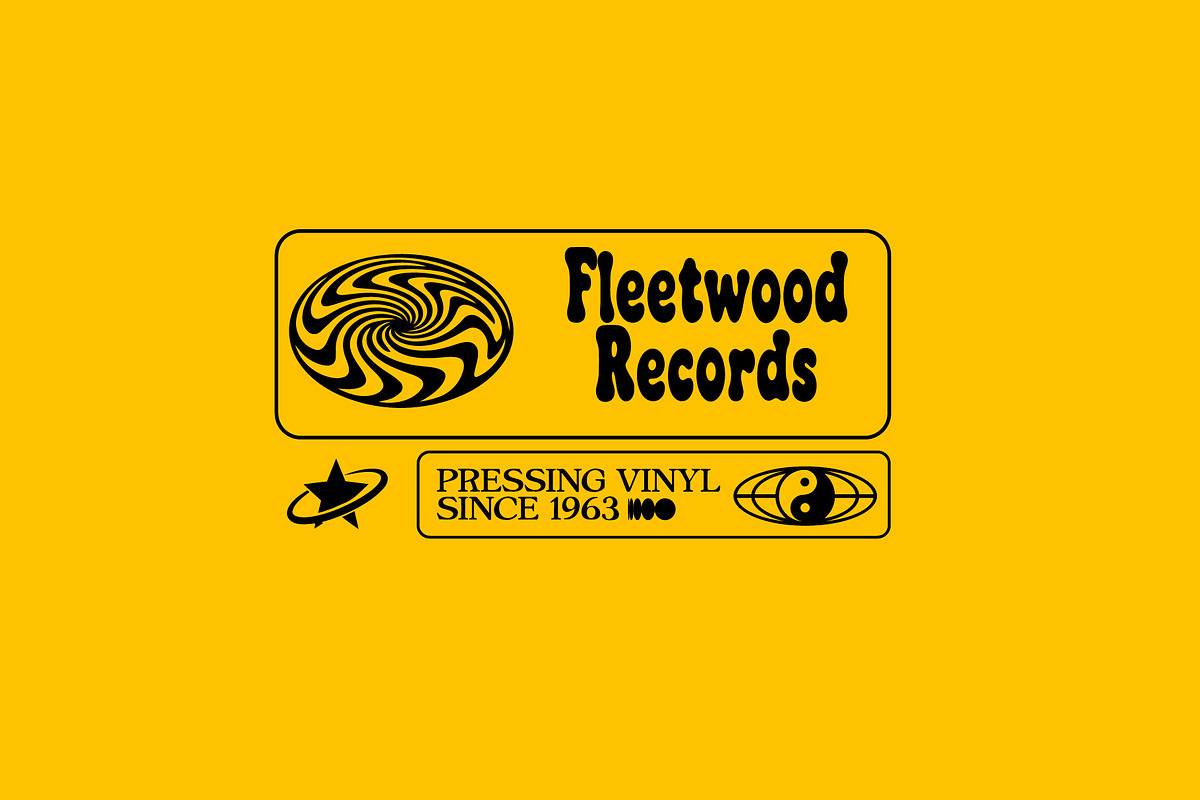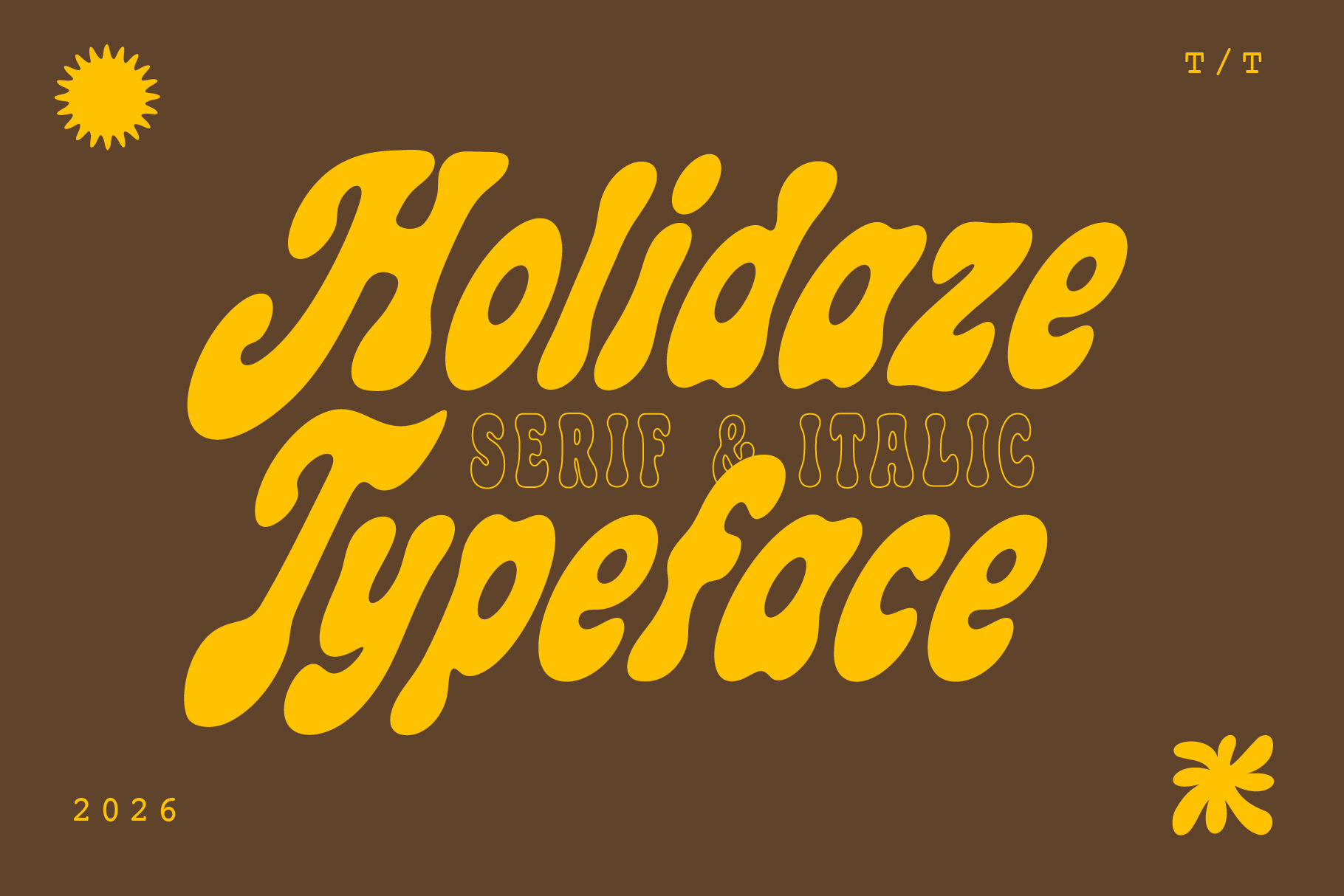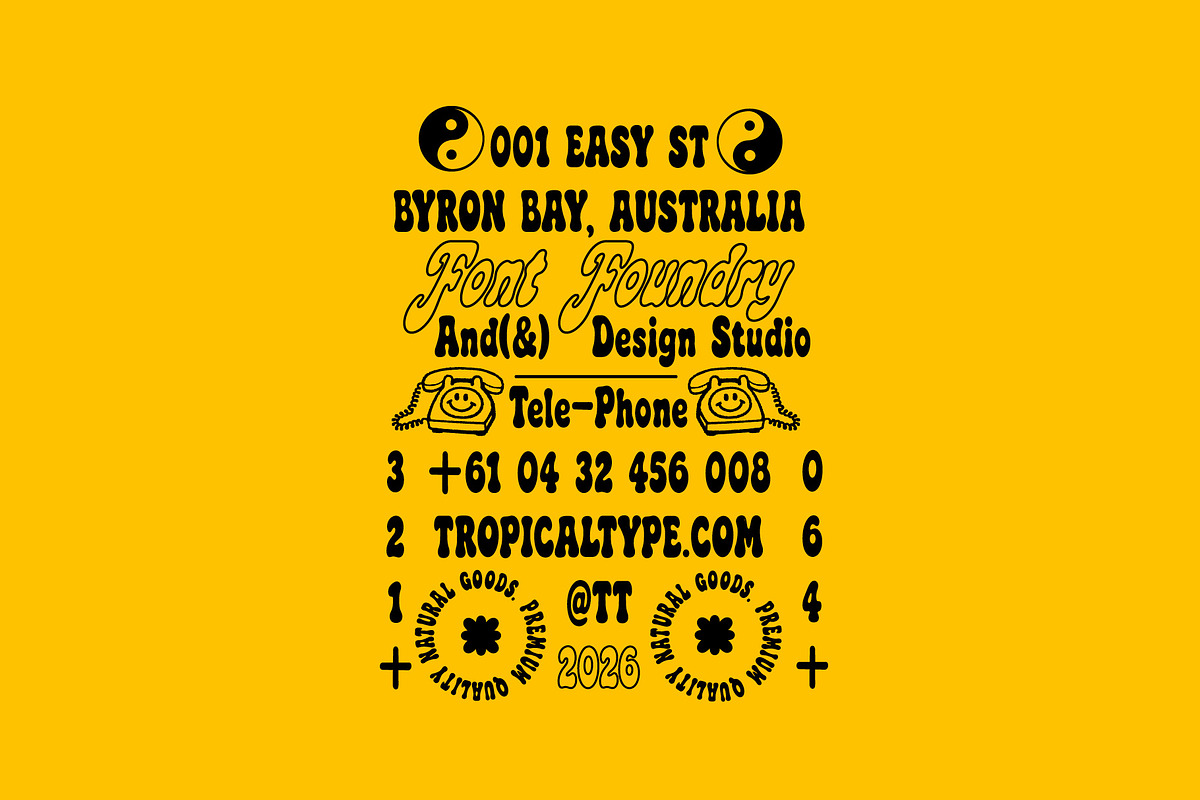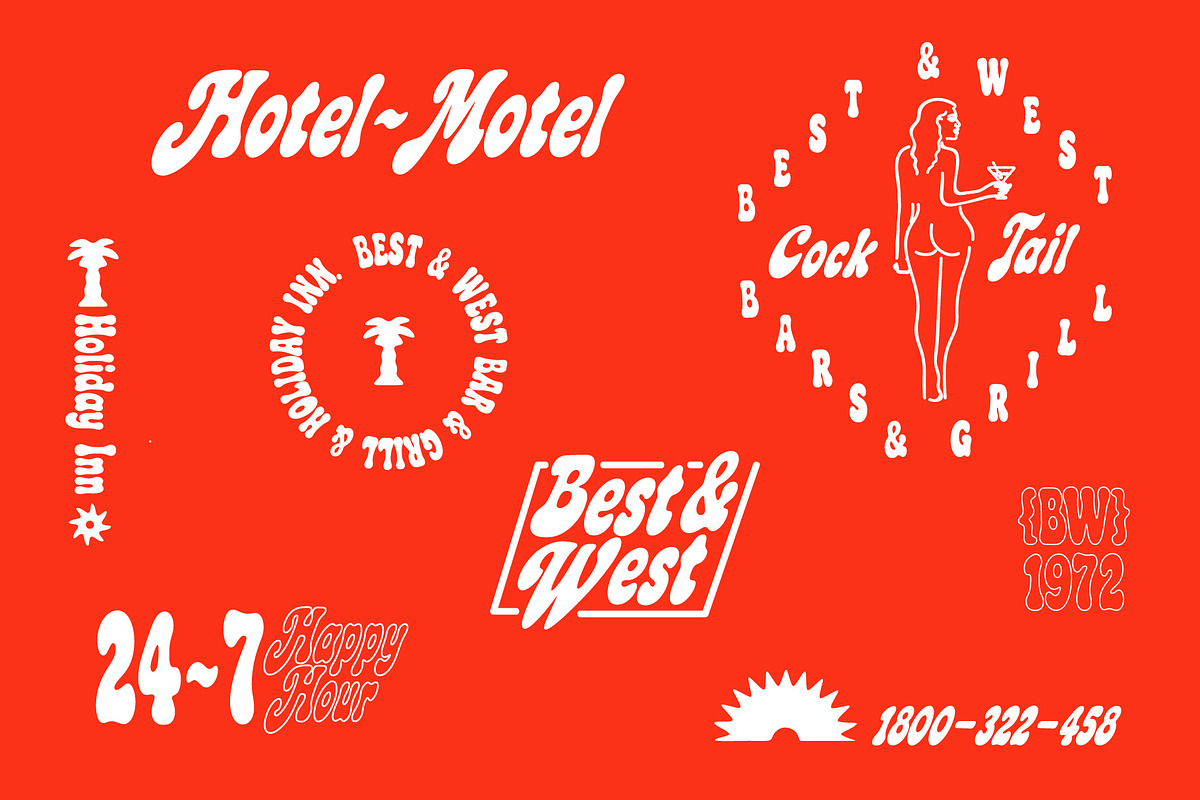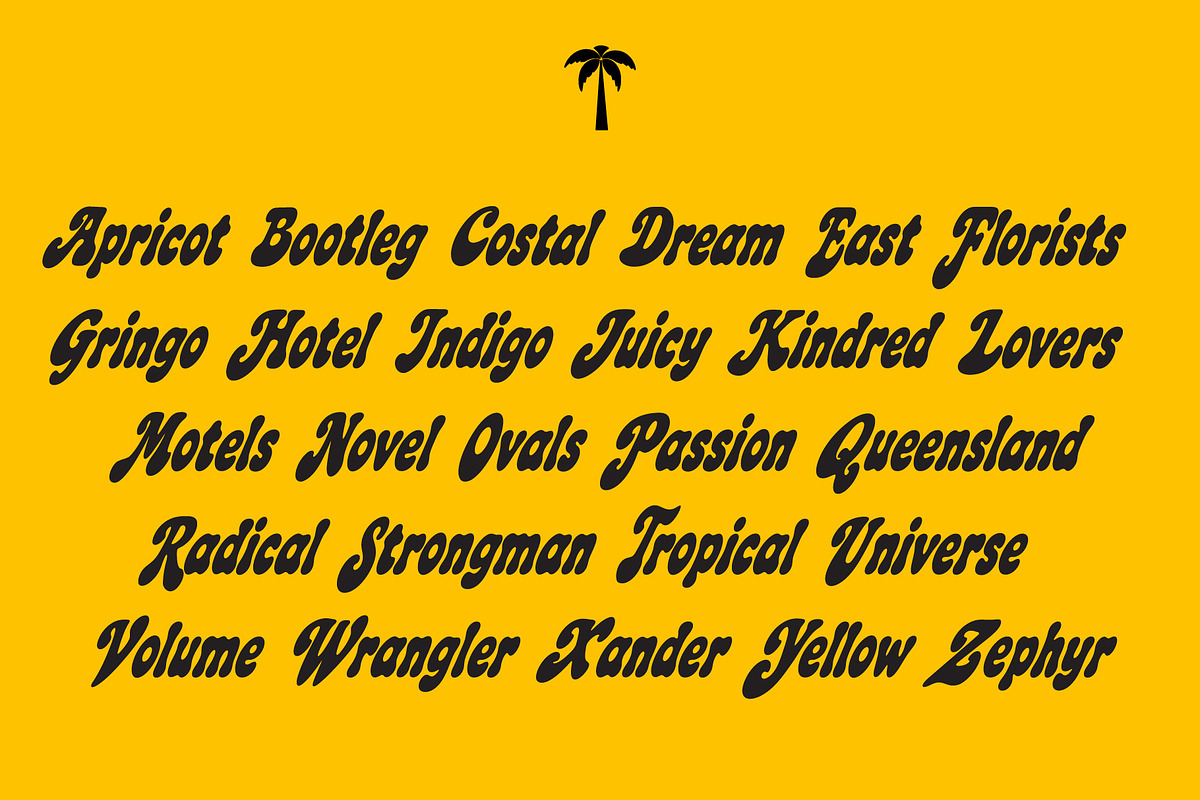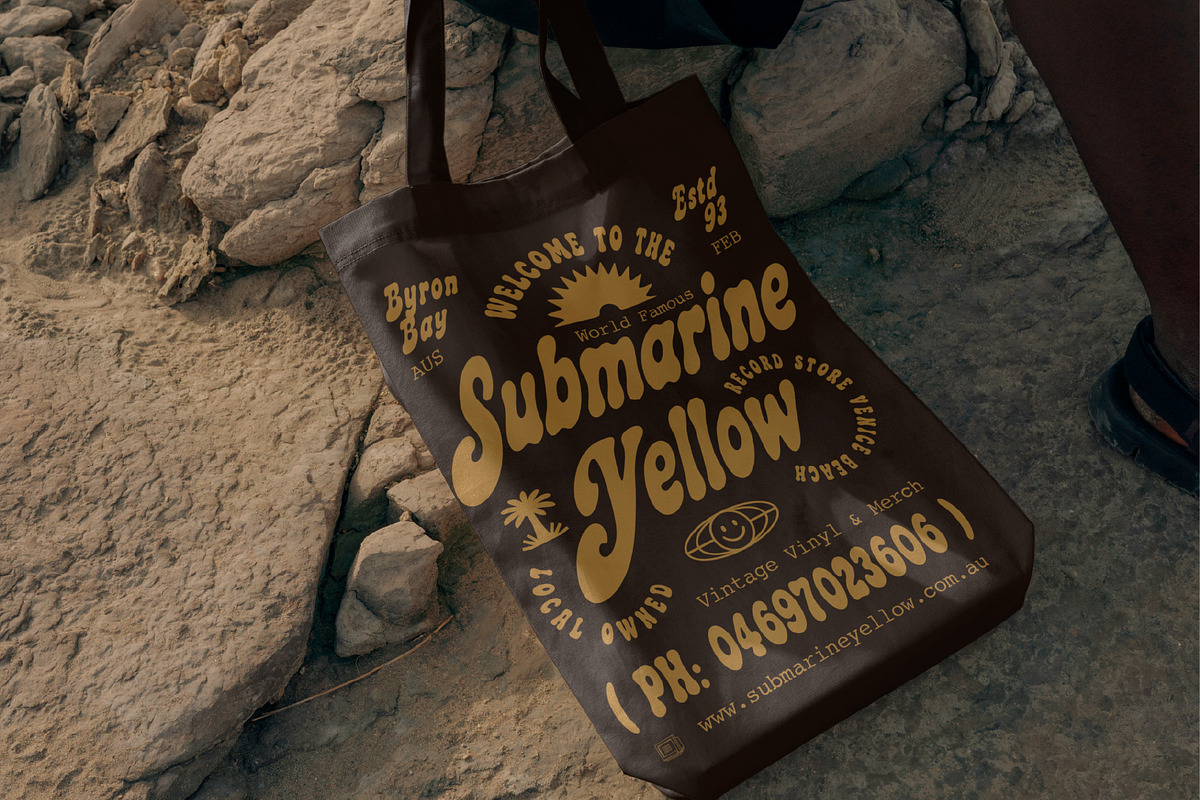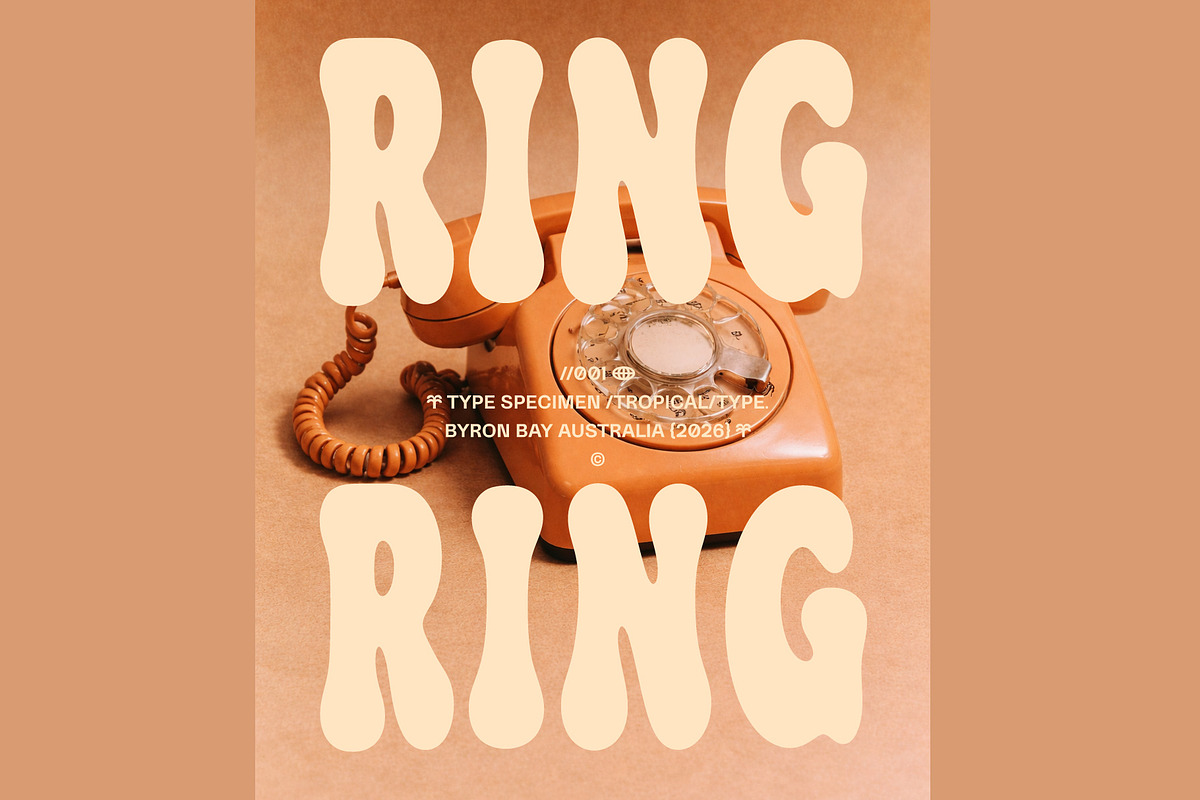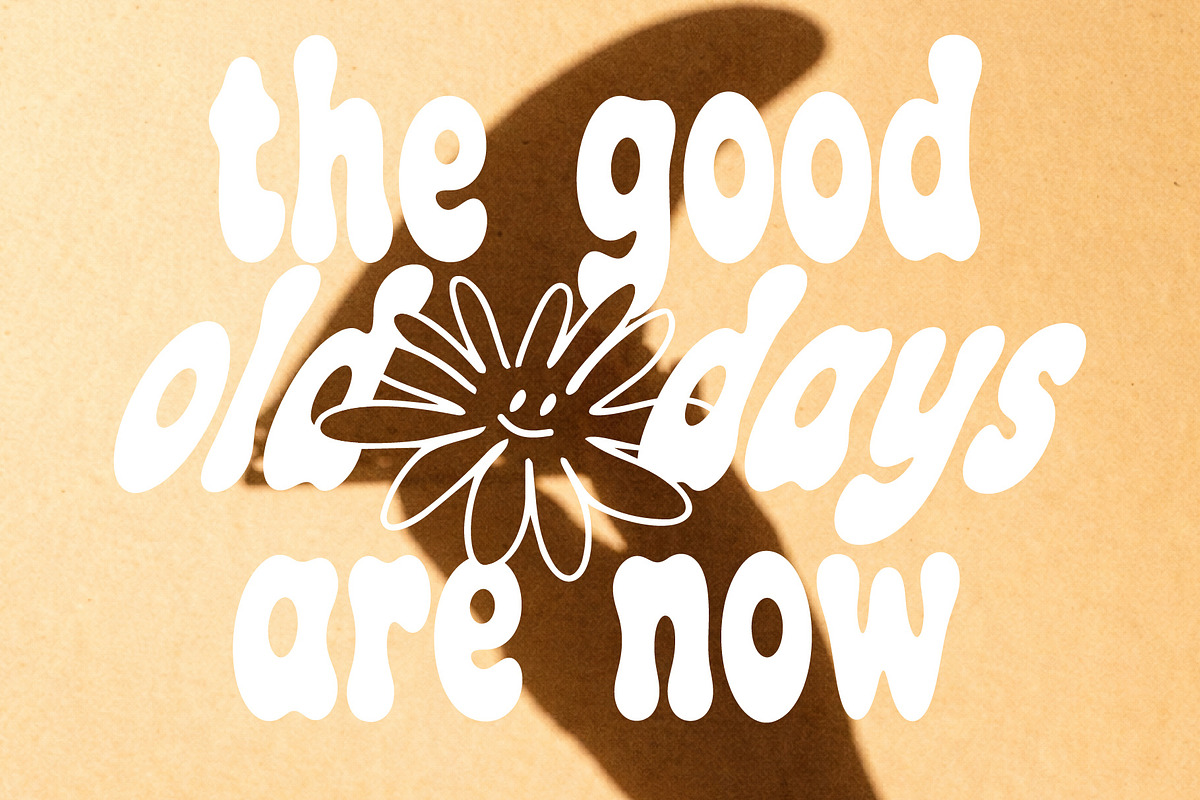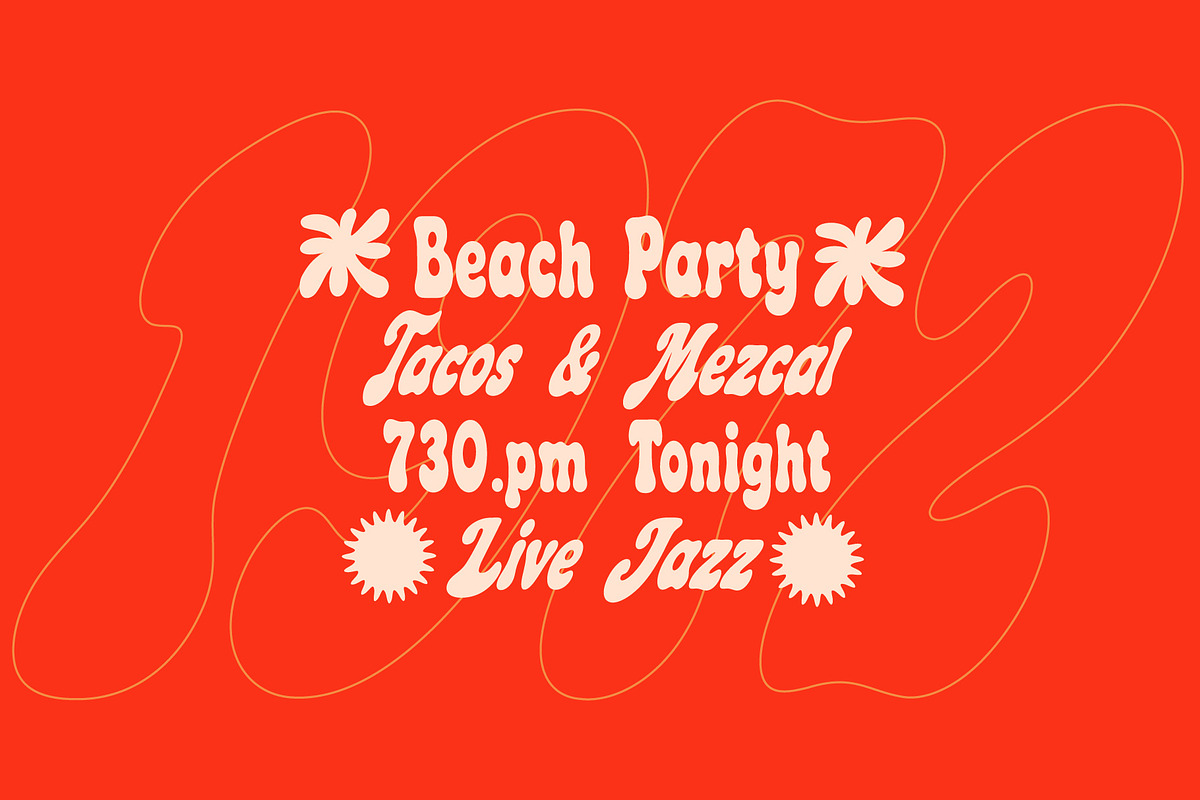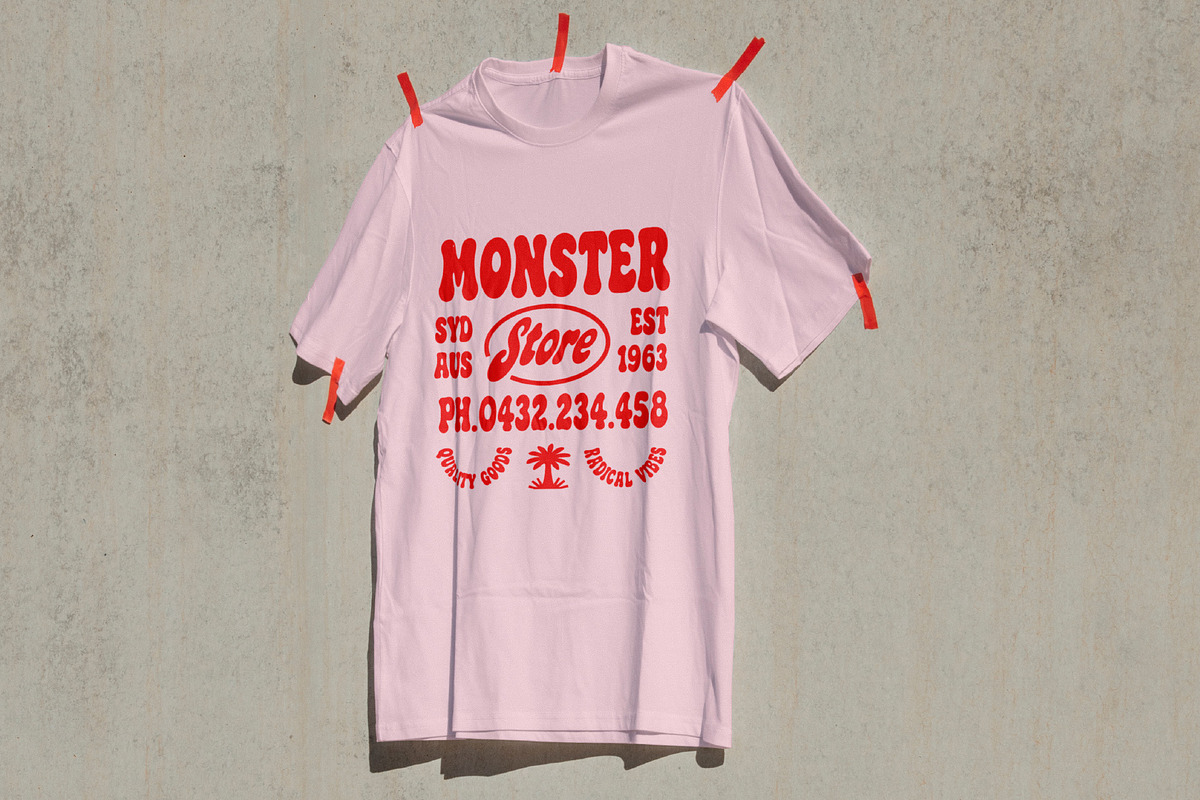
HOLIDAZE DISPLAY RETRO FONT
Holidaze Display is a vibe, and that vibe is laid-back. Grab a cocktail and some coconut oil and get designing with this smooth nostalgic number. Great for band posters, party invites and vintage looking merch. Treat yourself to a Holidaze with this funky font! Regular and Italic included. Enjoy.